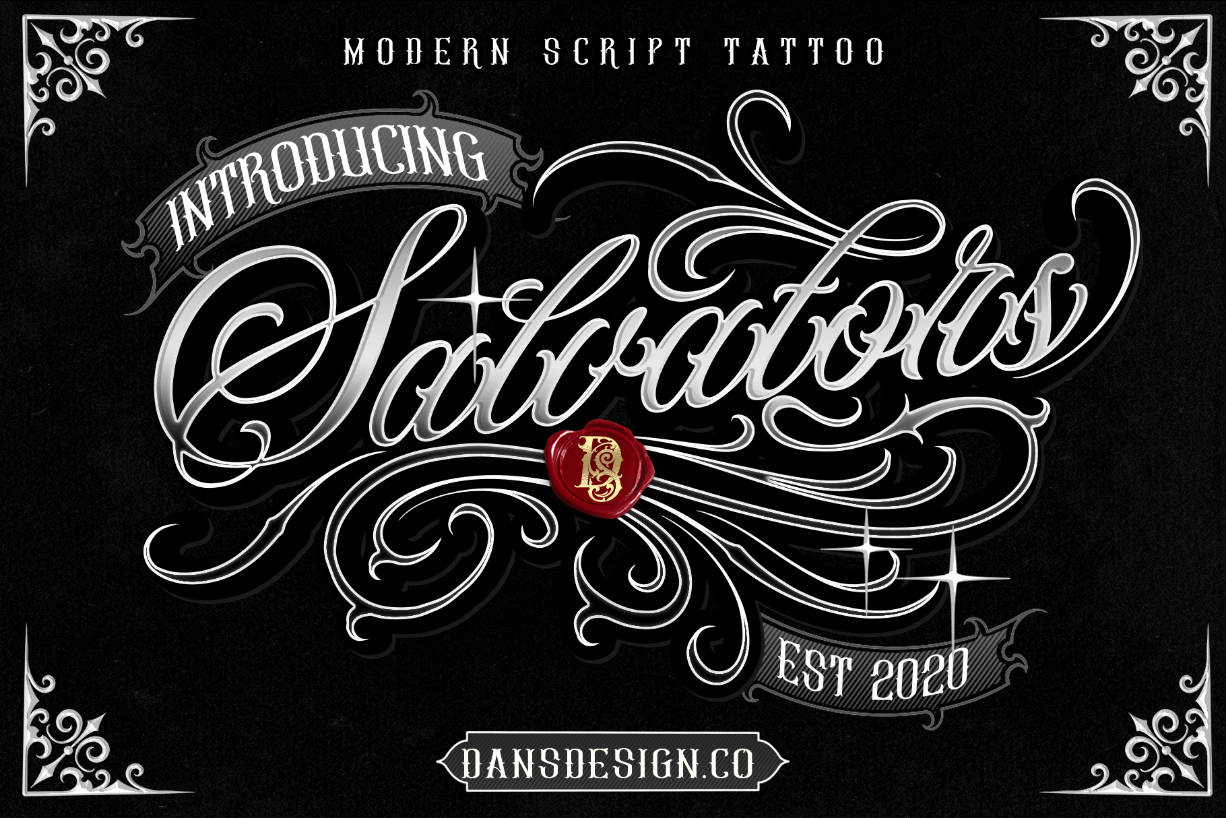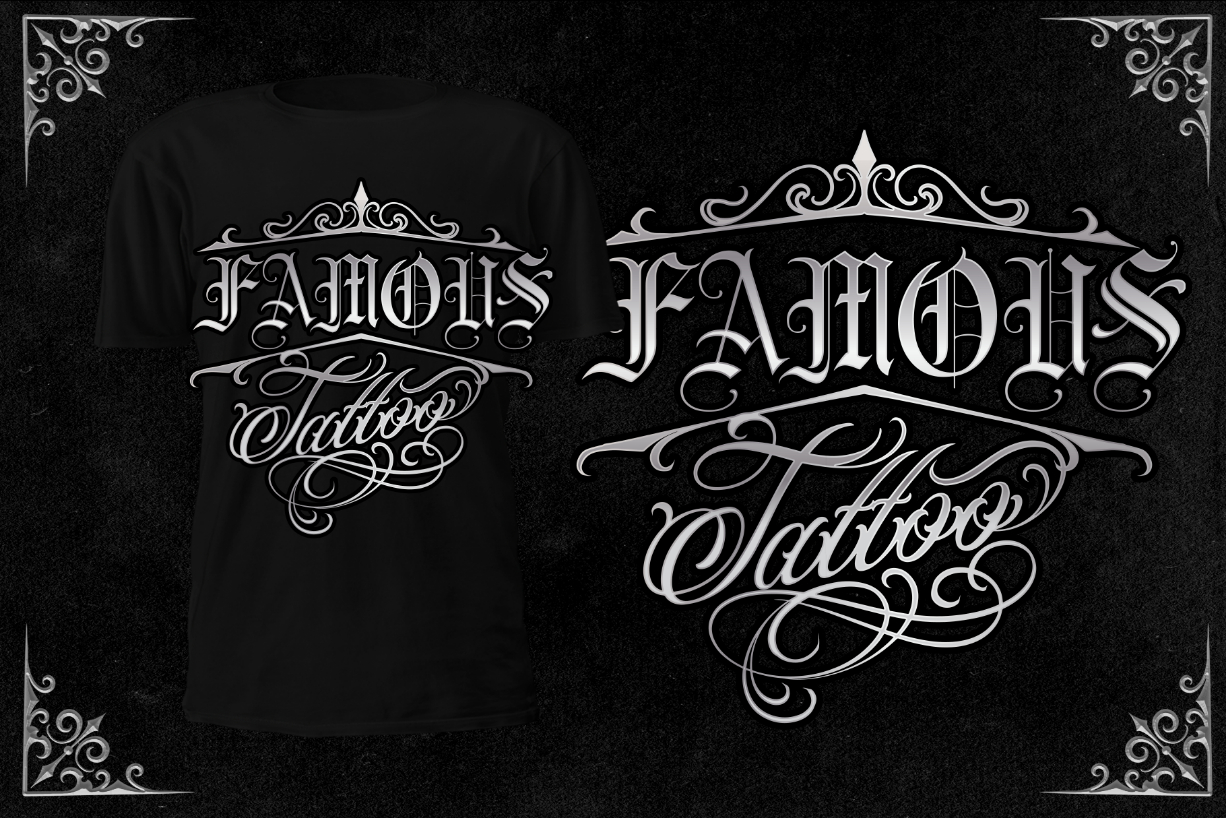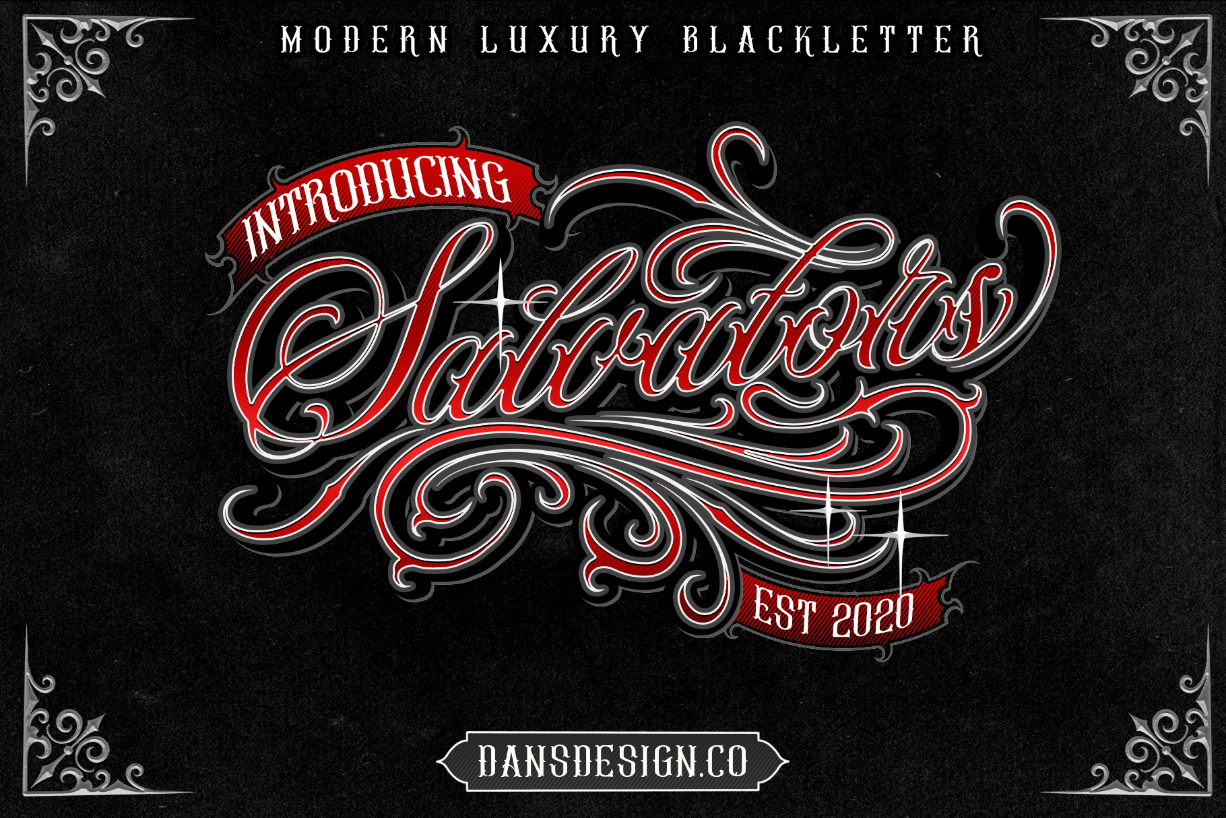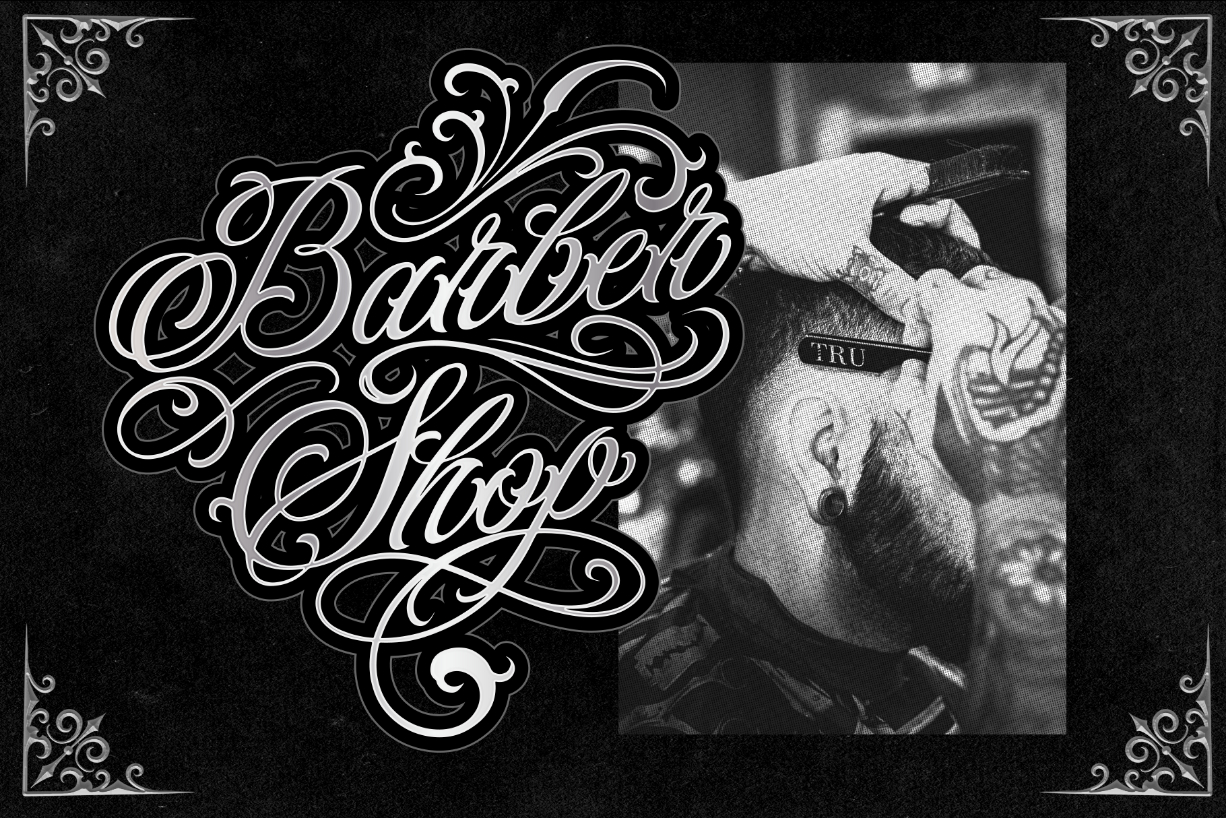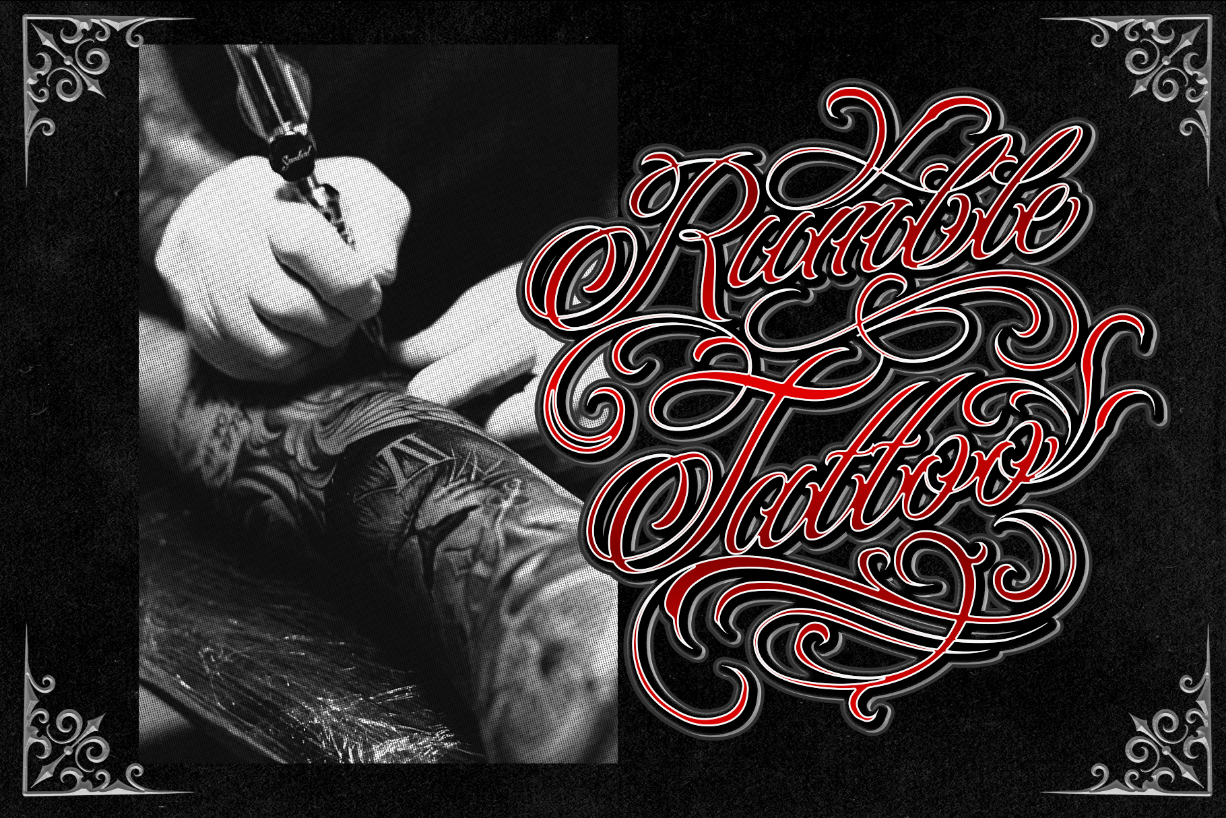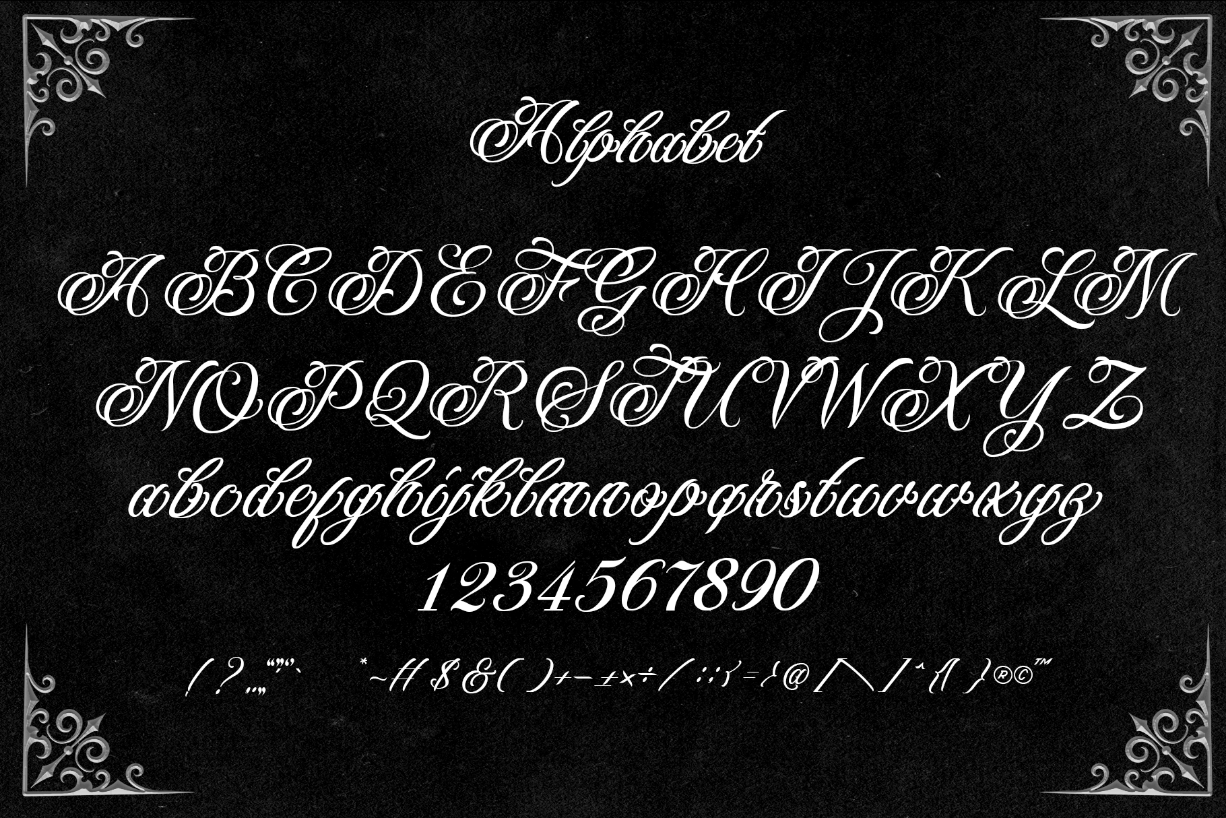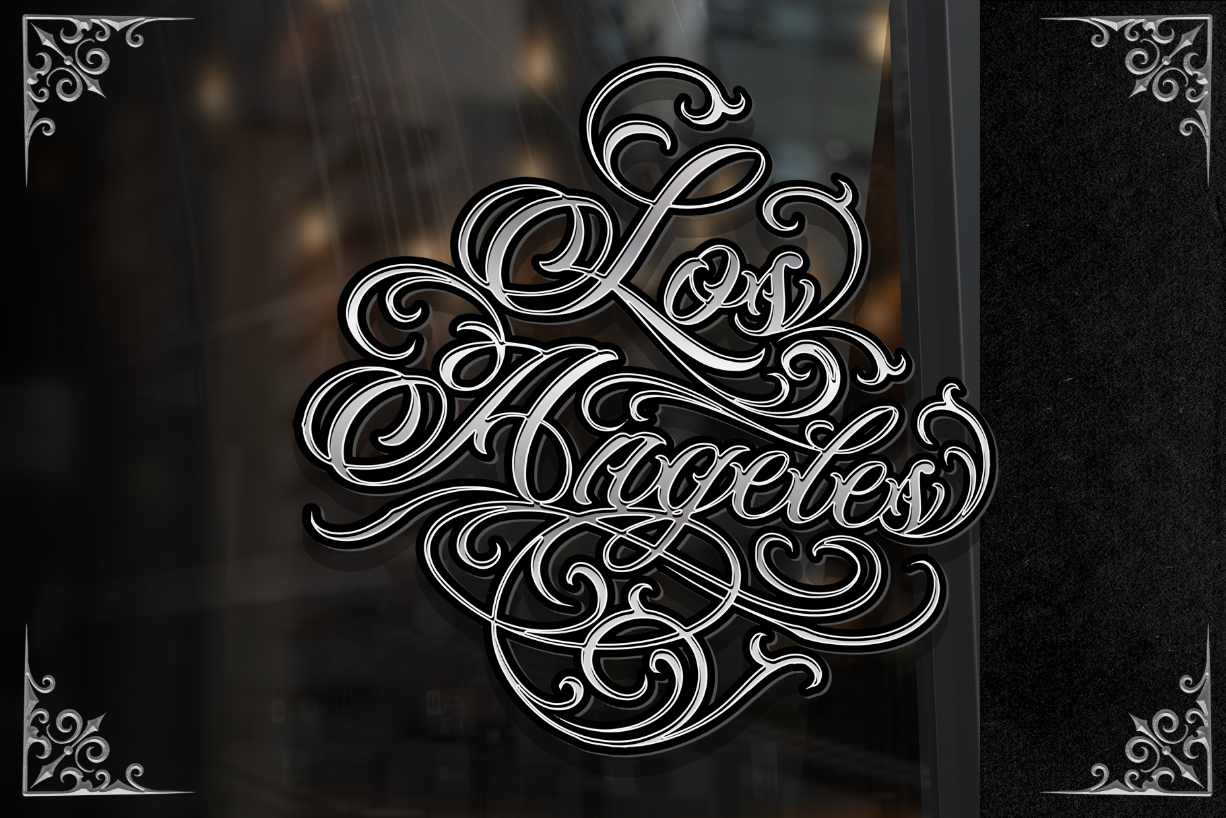
Salvators Font
About Salvators Font
Salvators is a beautifully intricate blackletter font that will take any creation to the next level! Use it for tattoos, logos, posters, headlines, magazines, clothing, and any other project that needs stunning typography!